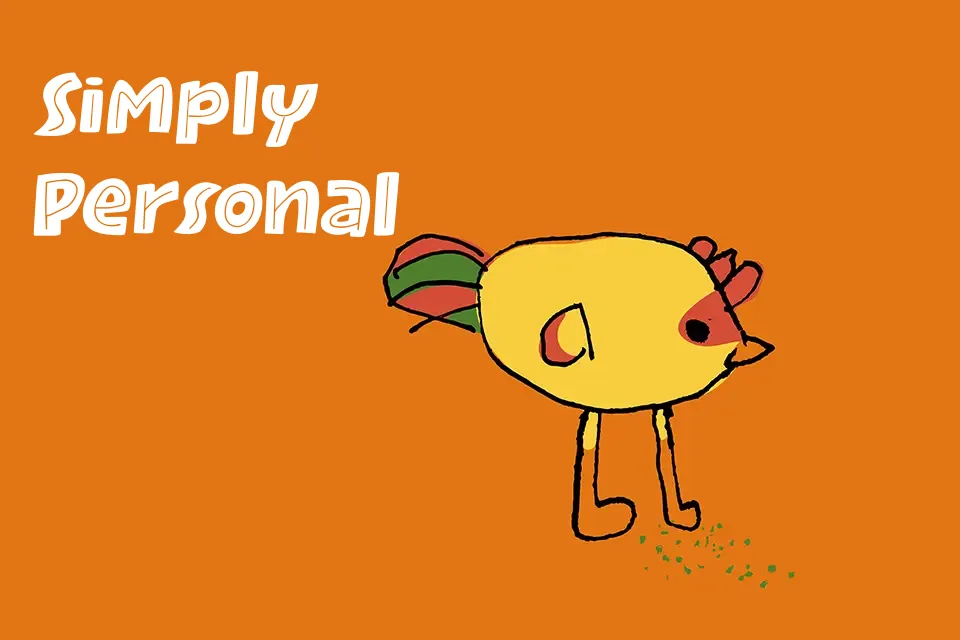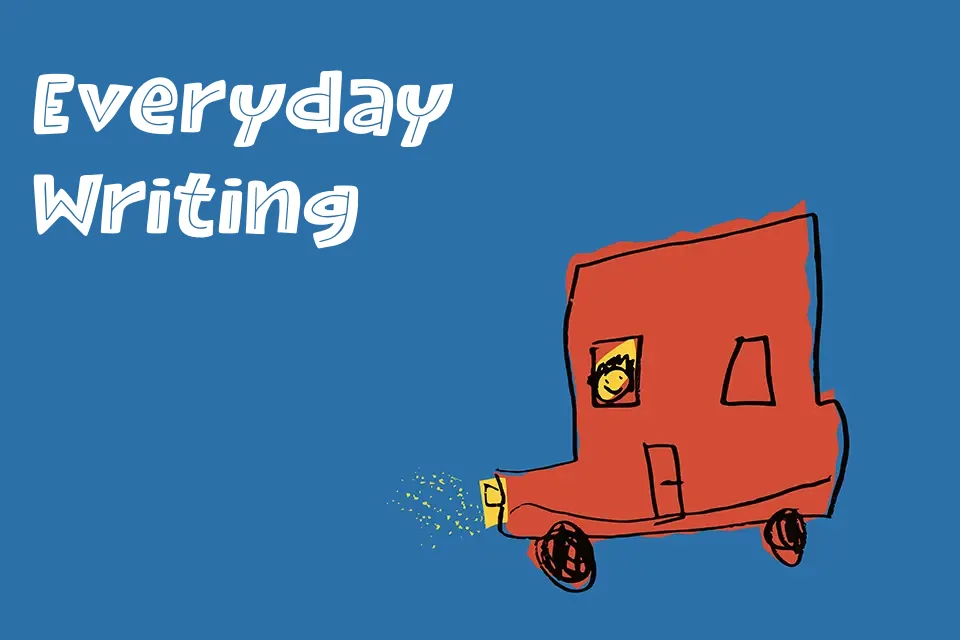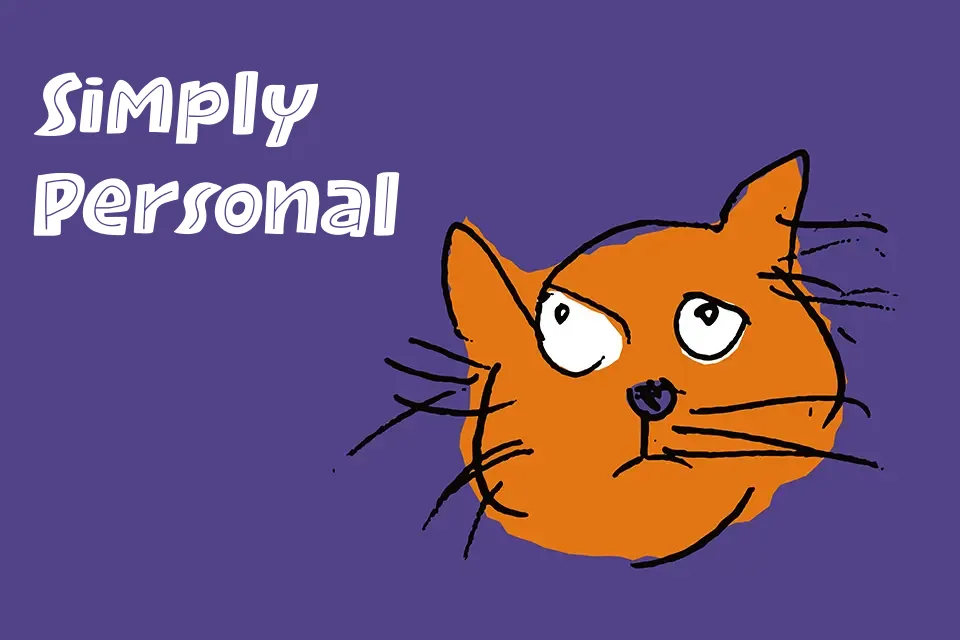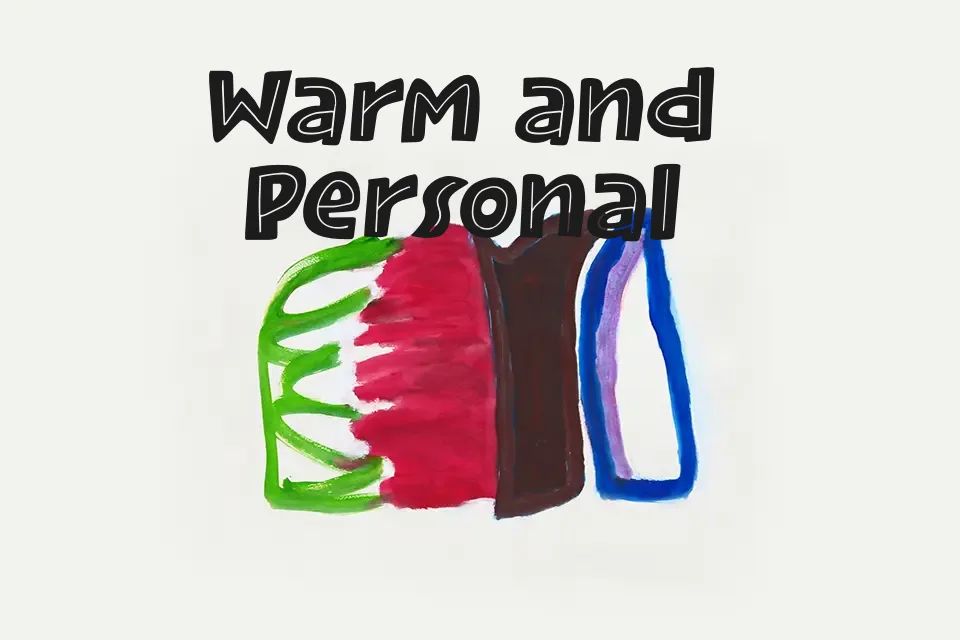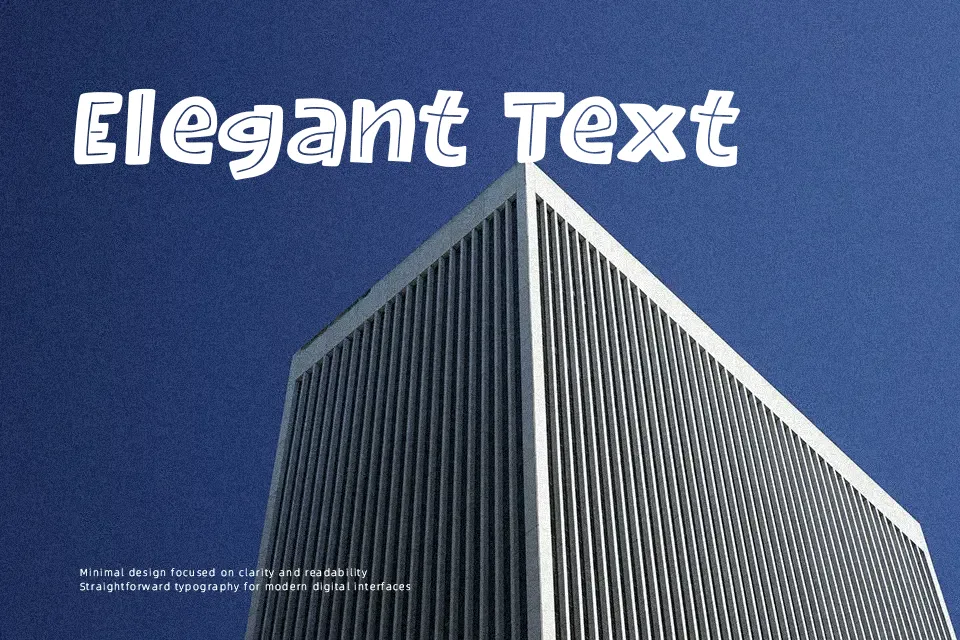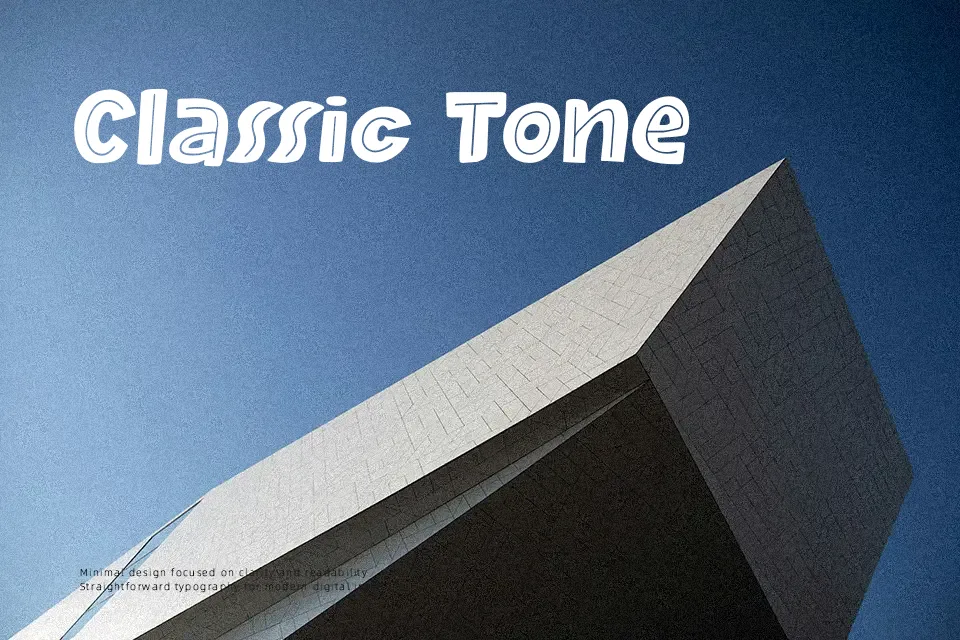
Raspberry Sherbet Font
Designed by Hanoded
Raspberry Sherbet Font introduces a lively, hand-drawn structure that immediately draws the eye through its distinct inline detailing. The letterforms exhibit chunky, irregular strokes with a bouncy rhythm, giving the typeface an undeniably playful and organic appearance. Proportions are slightly condensed, while the tight but balanced spacing keeps words feeling cohesive and solid. The thick forms carry a strong visual impact, ensuring that the typography performs best when displayed at larger sizes where the internal line texture can truly shine. Because of the heavy weight and decorative cutouts, these dense forms reduce comfort during extended reading, making the design less suitable for long paragraphs. It thrives in energetic display environments like casual packaging and poster headlines.
vibrant snack packaging, children’s book covers, playful event posters, casual apparel graphics
long paragraph text, corporate financial reports, small interface labels
Perfect for headline, kids, and packaging, with a energetic and cartoon style.